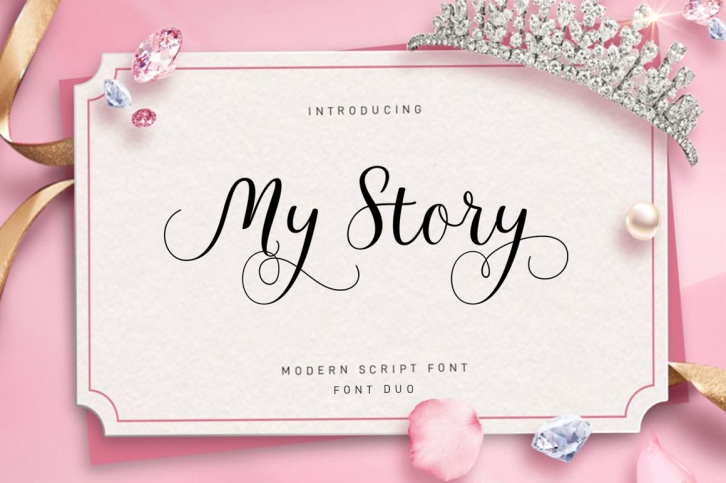
My Story Script Duo is a gorgeous font that was realeased on December 31, 2018. The font can be used in many style contexts and design environments. Perfect for invitations, magazines, websites, logos, and more! It was designed by Posts Type and the file size is 10.25 MB. Thanks for checking out this font!